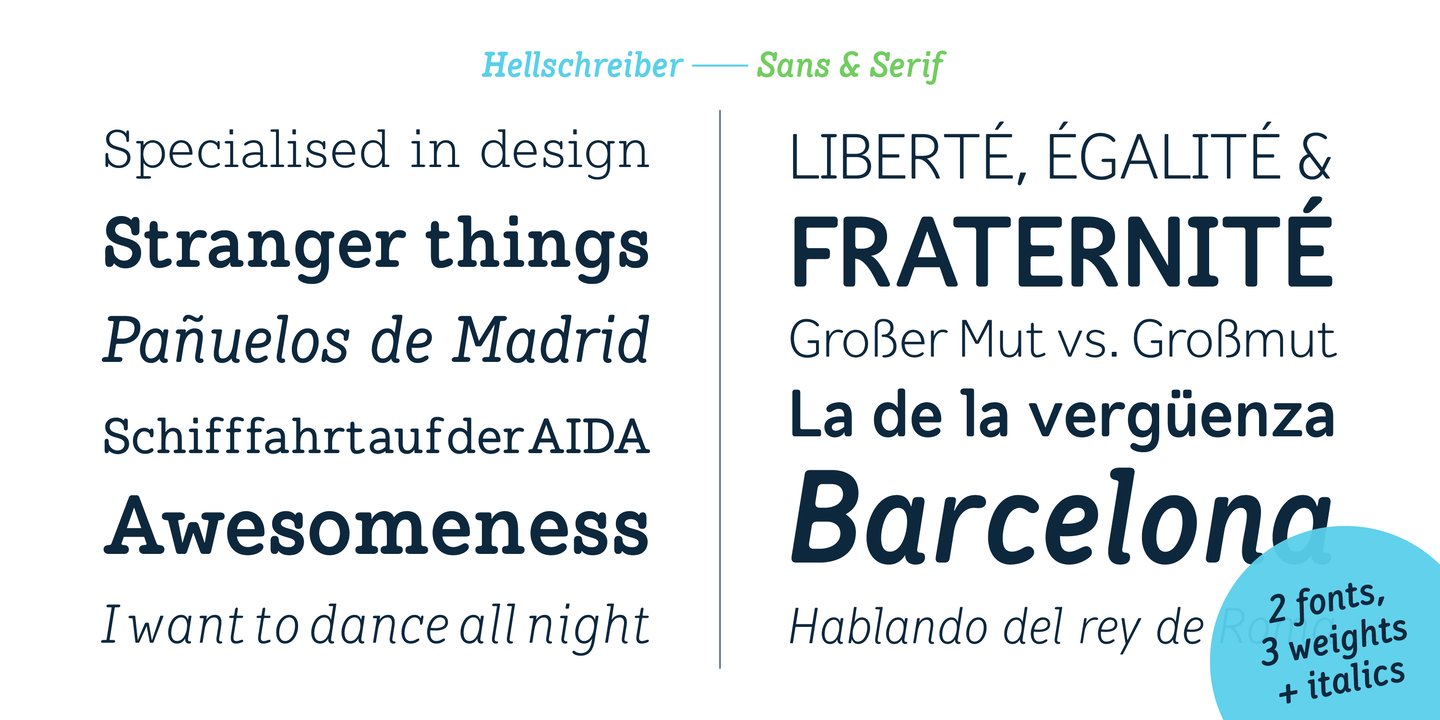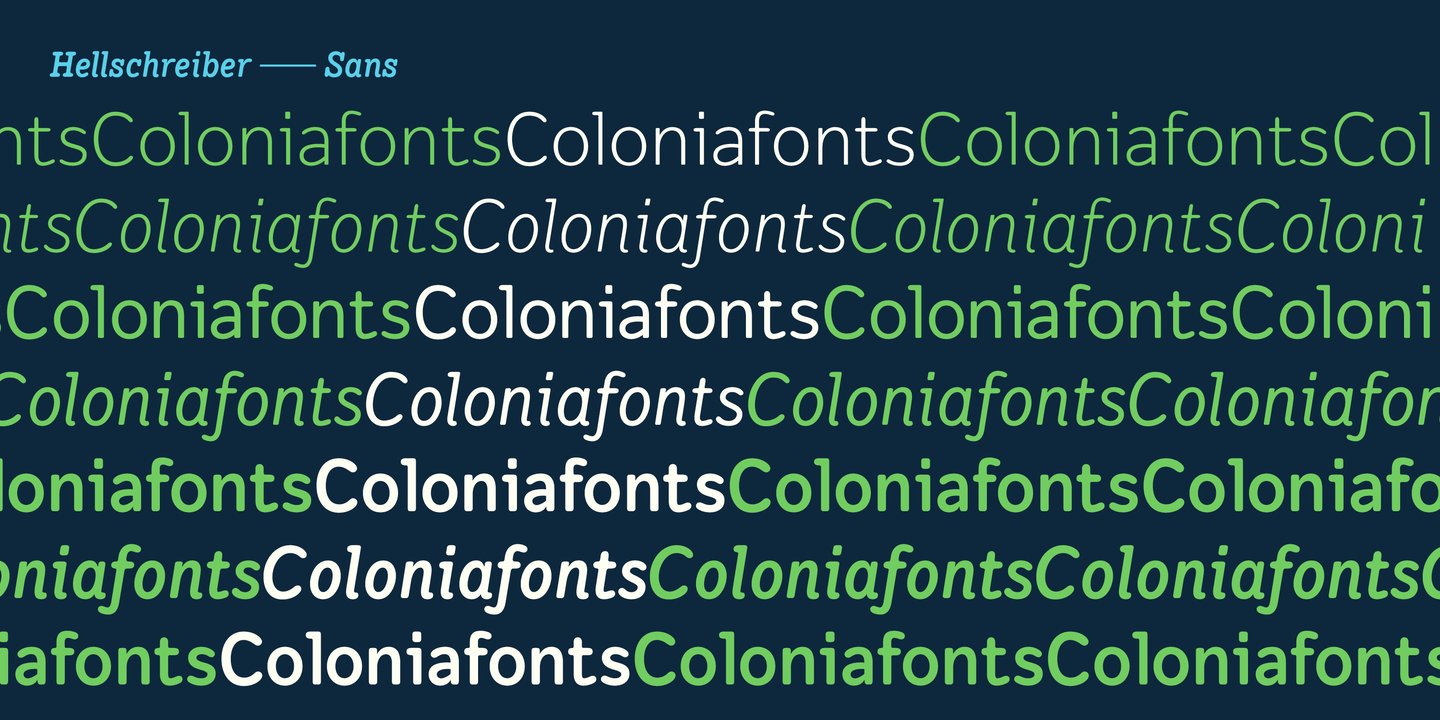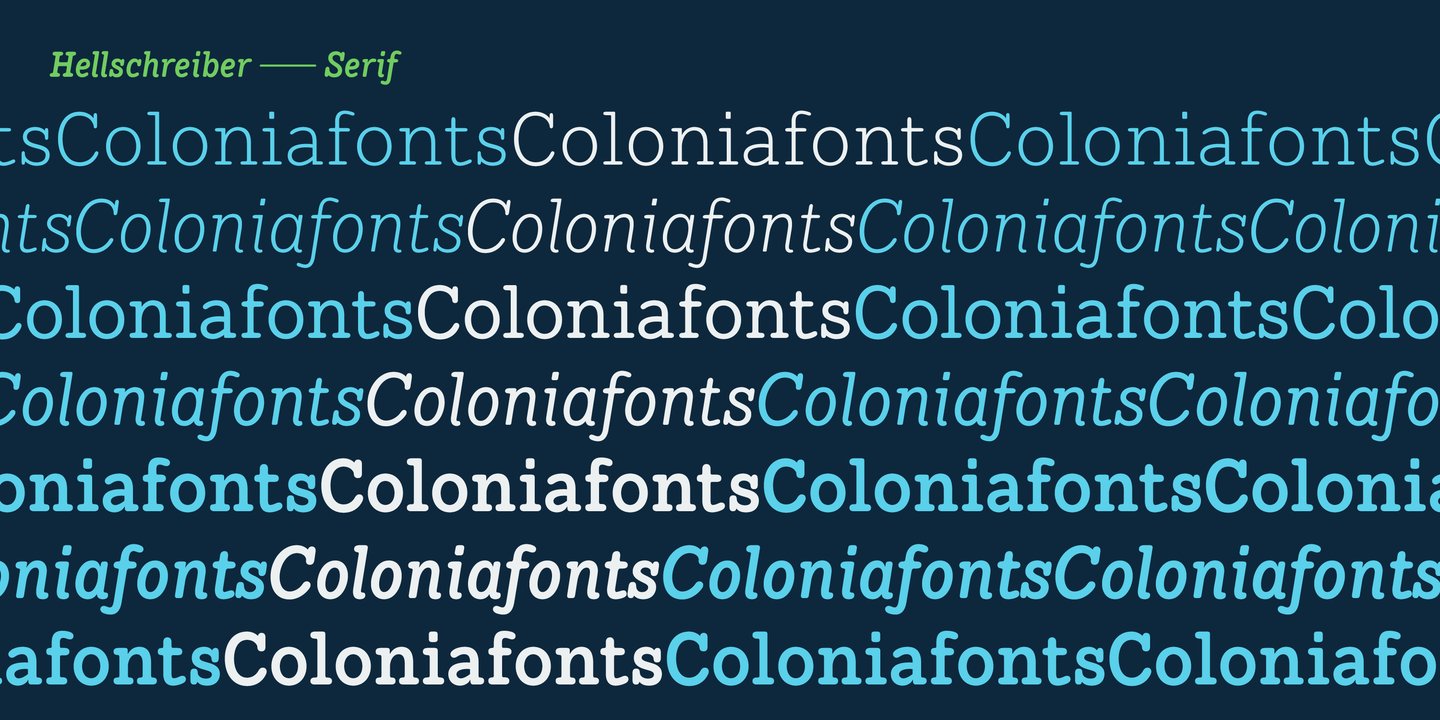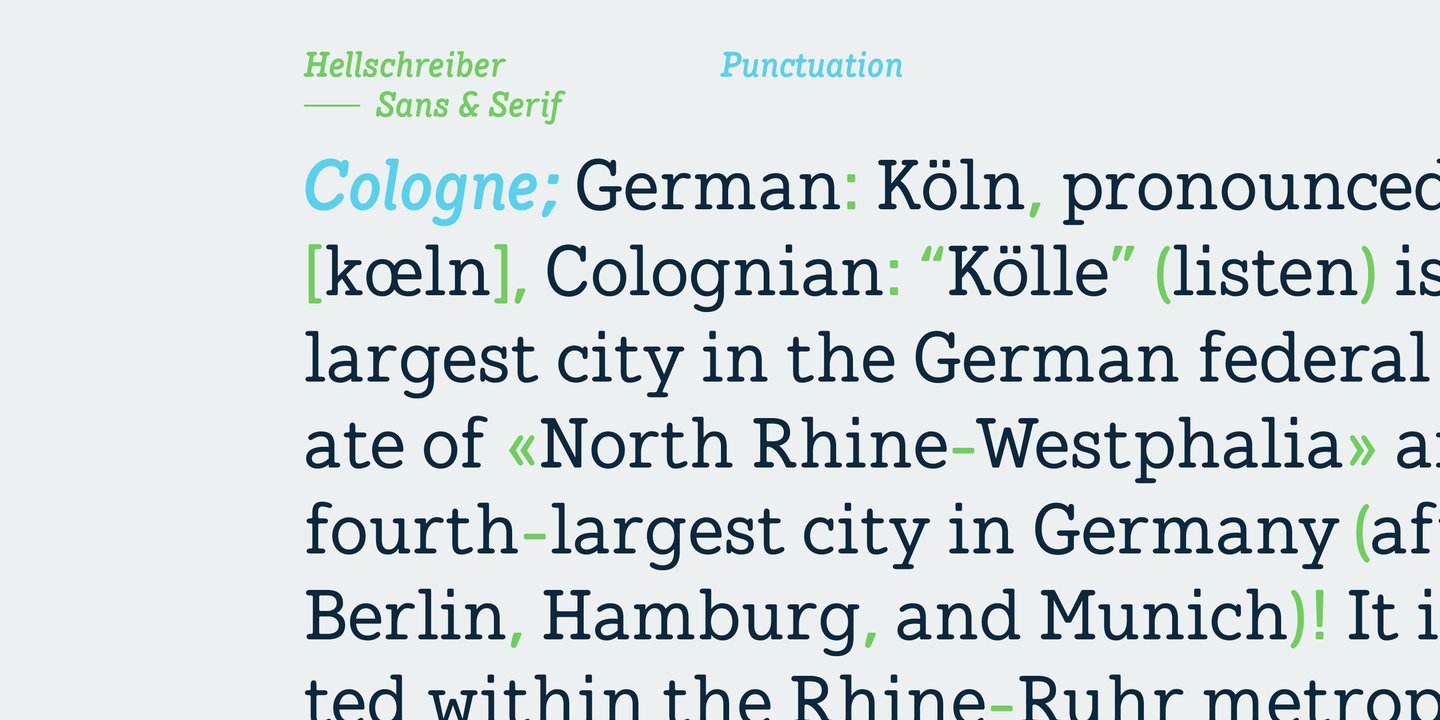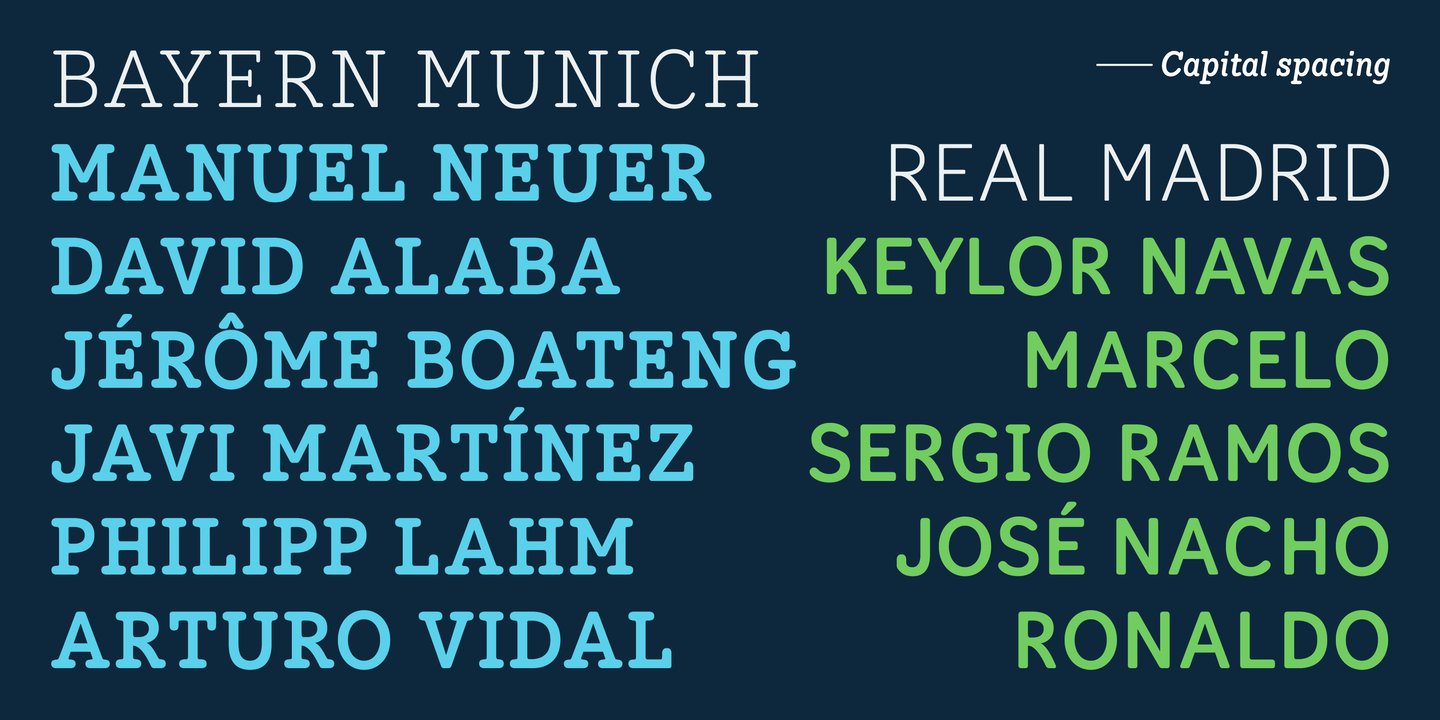
The birth of the monospaced types dates back to the past. There was a need for the creation of typesets for typewriters. The difficulty was to align the different glyphs in the same width. This led to particular problems with letters like “M” and “l”; the former seemed to be squeezed into the same width of all letters and the second one appeared way too streched. Despite – or perhaps because of – the impression of the typewriter is still popular with Graphic Designers. Nowadays there are even monospaced versions of primarily proportional types; for example the the Sans Mono designed by Lucas de Groot or the DIN Mono. Then again, why not the other way round?! In the first half of the Nineties, Erik Spiekermann developed a proportional type named ITC Officina based on the Letter Gothic. According to a survey on the 100 best fonts of all time conducted by FontShop, ITC Officina is in an eighth place, far ahead of its forerunner. This was the reason for me to create a wider design with a Serif and a Sans Serif based on the queen of all monospaced types – the Courier.